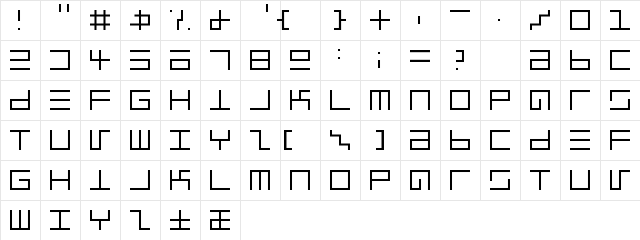
Epps Evans Light
Design Context for Epps Evans Typeface
Epps Evans offers clean, dependable letterforms without strong stylistic allegiance, making it a practical choice for designers who need flexibility. The delicate stroke weight brings airiness and refinement to layouts.